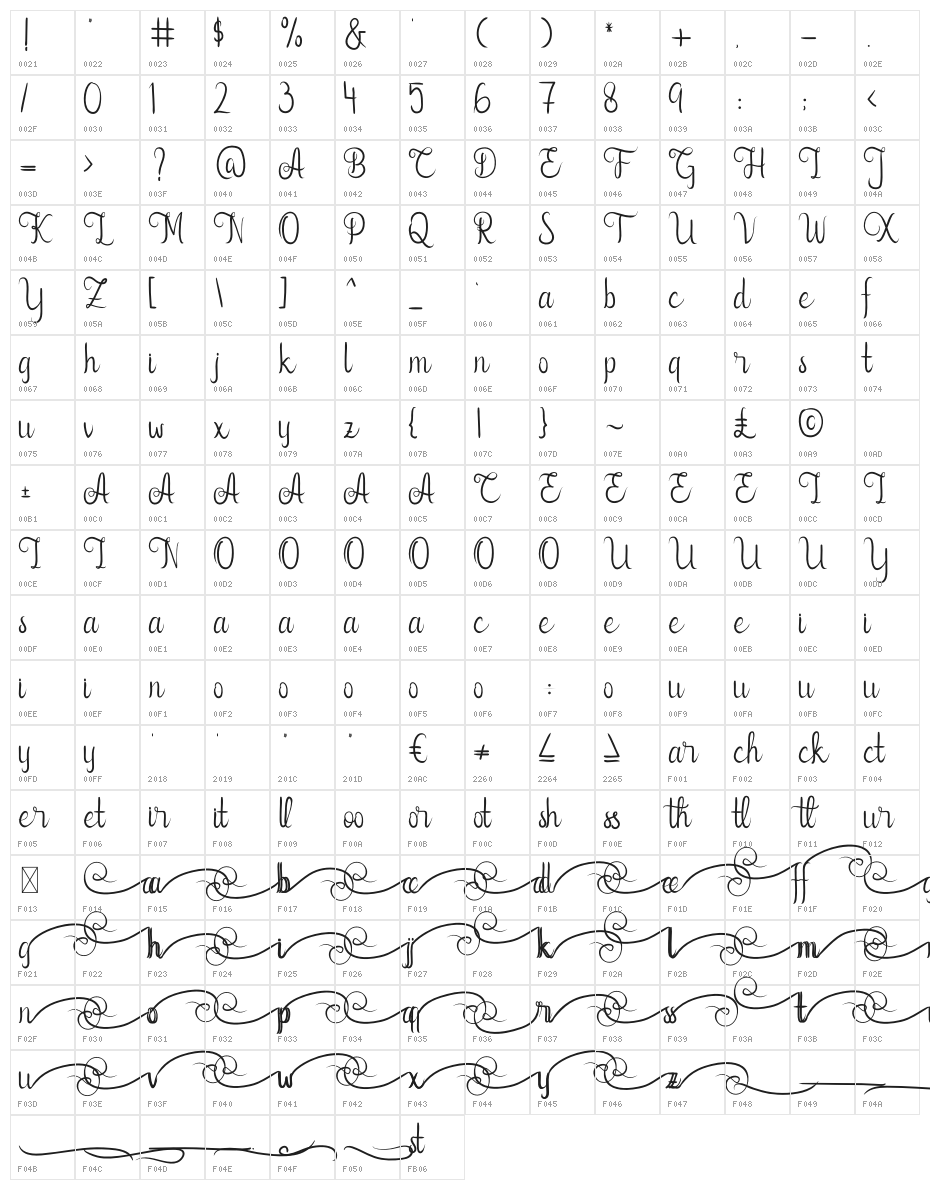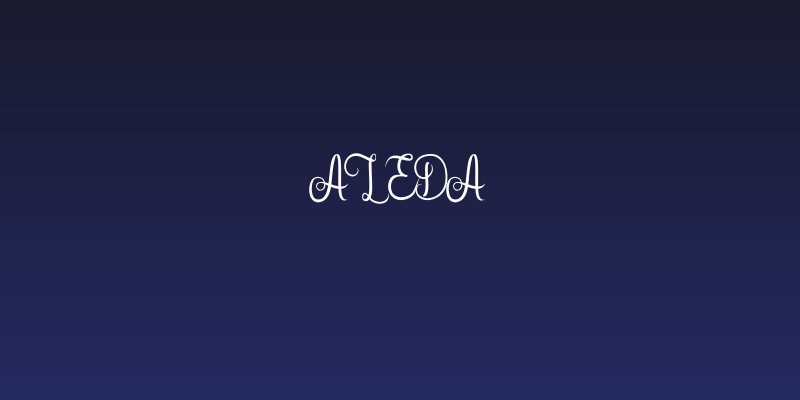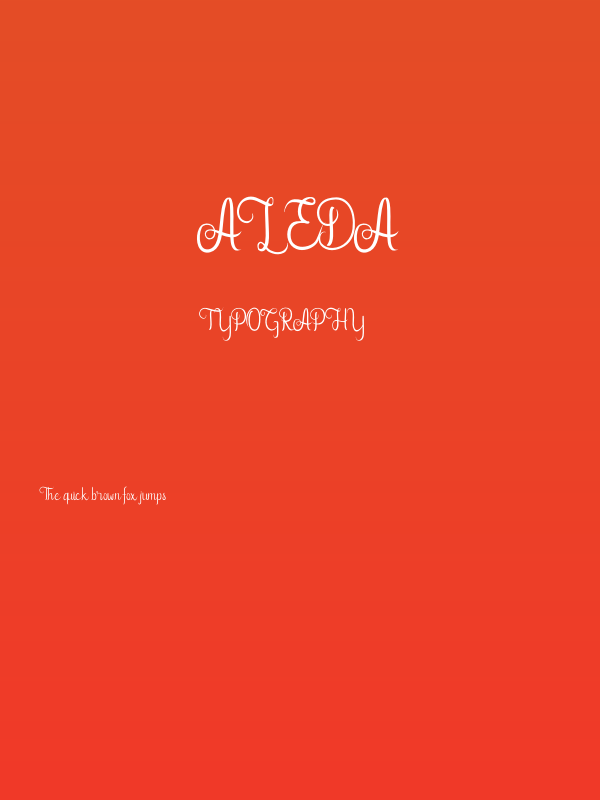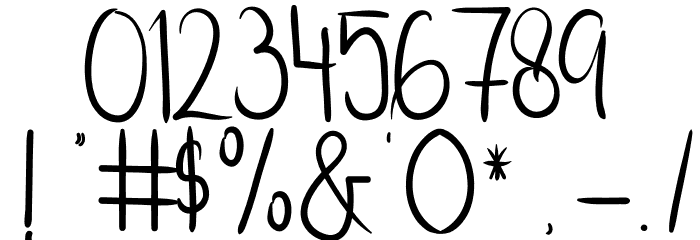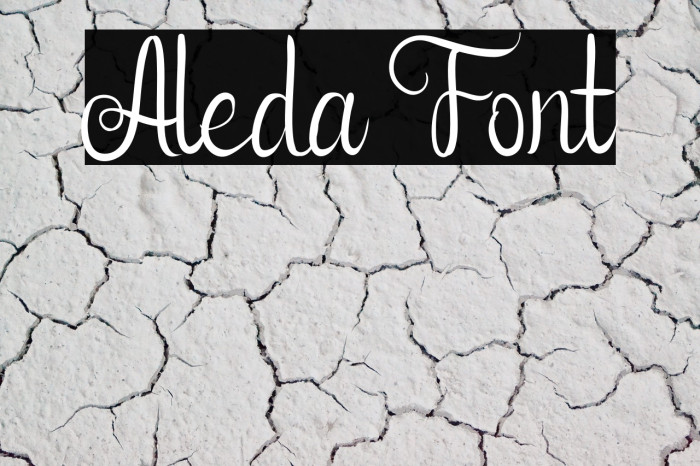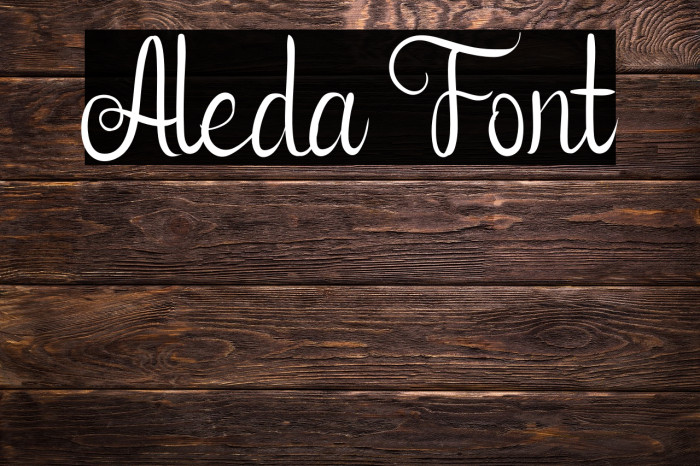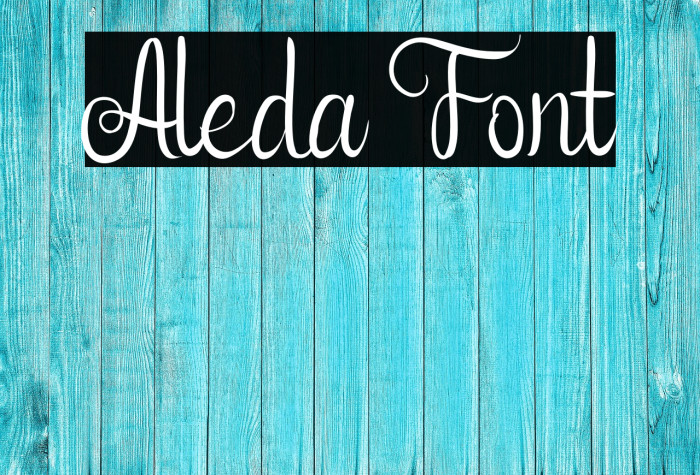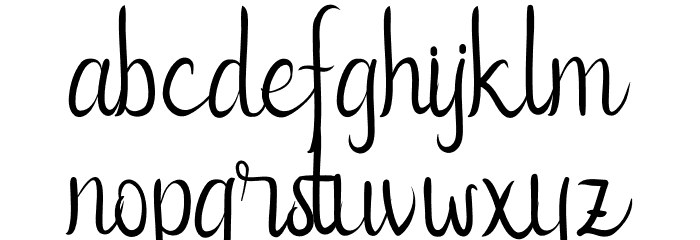
Aleda Font
Aleda Description
This font features a playful and whimsical script style with a hand-drawn appearance. The uppercase letters are characterized by their looping, cursive forms, while the lowercase letters maintain a consistent flow with slightly exaggerated ascenders and descenders. The numerals are rounded and maintain the same playful aesthetic, making them easily legible. Special characters are creatively integrated, adding to the font's charm. The overall look is casual yet elegant, suitable for projects that require a personal touch.